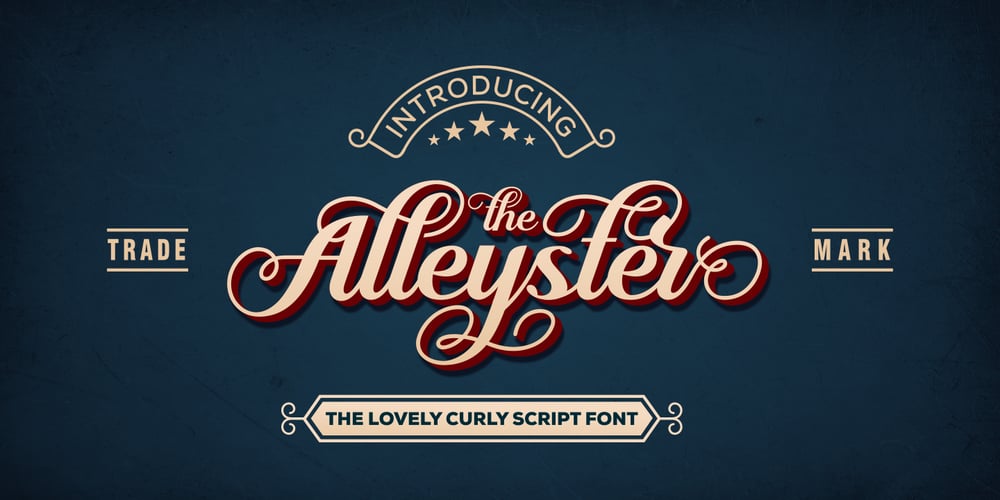
Alleyster
Alleyster font
Alleyster Font Family was designed by Nur Faidin and published by Nurf Designs. Alleyster contains 1 styles and family package options. Alleyster is a lovely curly script font in a modern calligraphic style and includes amazing handwritten characters. It’s perfect for logos, posters, headlines, and every other design which needs to stand out!